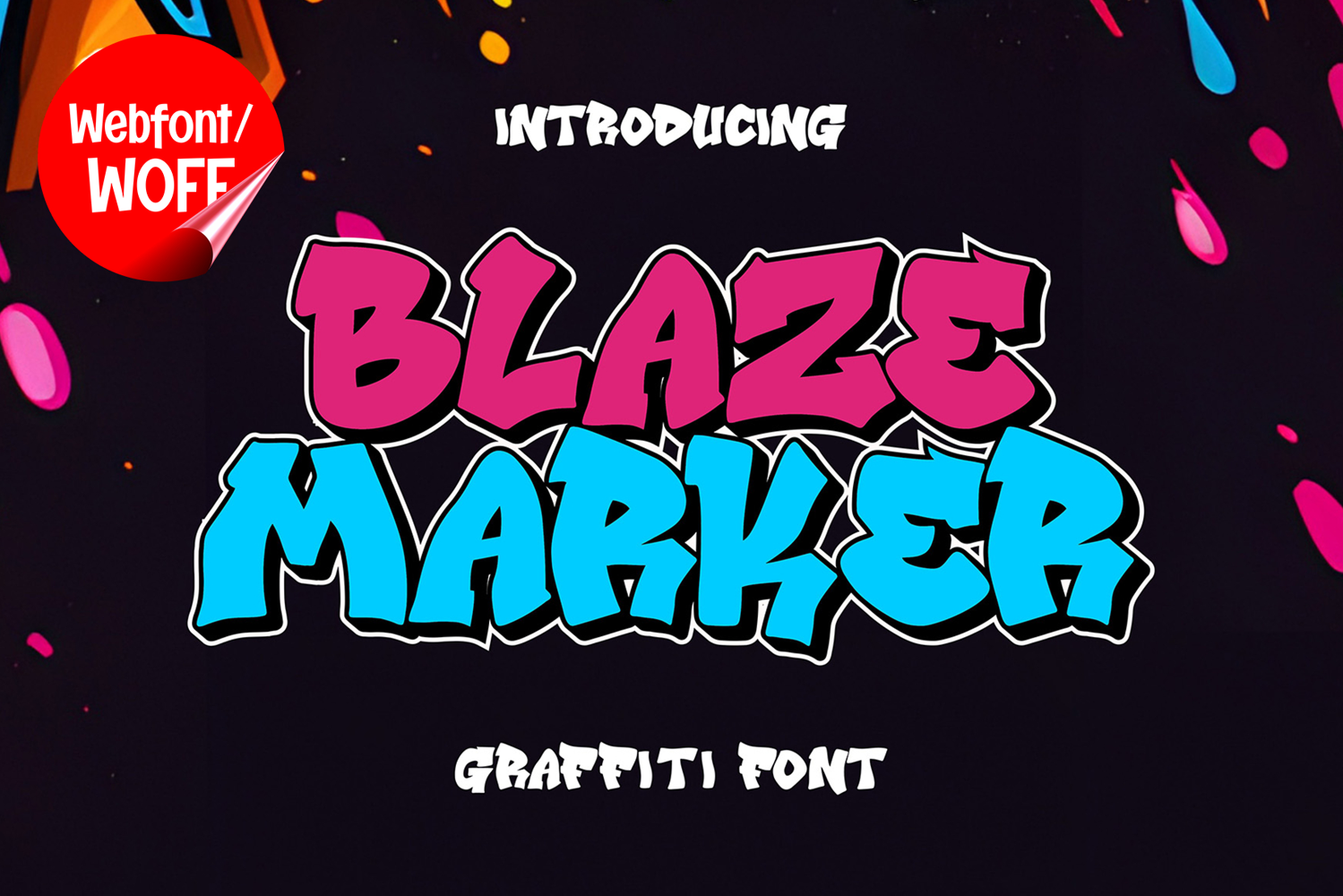
Blaze Marker | 3D Break Layered Graffiti Webfont for Urban
Blaze Marker is a 3D break layered graffiti webfont designed to bring explosive street-art energy and bold urban aesthetics into modern website design. Inspired by broken graffiti lettering, layered spray-paint murals, and underground wall art culture, this font features fragmented shapes and dimensional depth that create a powerful and rebellious visual identity. It is an excellent choice for projects that aim to deliver authentic graffiti visuals with strong creative impact and modern street-style character.
Blaze Marker includes a complete set of uppercase characters designed with break-style layered graffiti aesthetics. The letterforms feature aggressive cuts, dynamic curves, and dimensional layering that create an energetic and eye-catching street-art appearance. These characteristics make it ideal for headlines, banners, hero sections, promotional graphics, and featured content where strong urban visuals are needed.
In addition to letters, the font includes numbers and punctuation, allowing flexible usage across various parts of a website. It works well for streetwear branding, gaming websites, music platforms, hip hop projects, esports graphics, and creative portfolios. Each character maintains a consistent layered graffiti style, ensuring a cohesive and unified visual identity throughout the design.
With multilingual support, Blaze Marker includes a wide range of accented characters, making it suitable for international websites and global audiences. This ensures content remains clear and visually consistent across different languages while preserving the expressive and rebellious graffiti aesthetic.
The 3D break layered graffiti style of Blaze Marker makes it especially suitable for urban-themed websites, entertainment campaigns, youth-oriented branding, and creative digital projects. Its fragmented structure and layered depth create a powerful street-art atmosphere that helps websites stand out in visually competitive environments. The graffiti-inspired forms add movement, intensity, and authentic underground character while maintaining a modern display appearance.
Despite its decorative and highly expressive appearance, Blaze Marker is designed with readability in mind. The spacing and proportions are carefully balanced to ensure clarity, particularly in display sizes. This allows designers to use the font effectively for impactful headings and short content without sacrificing usability.
Blaze Marker is a webfont that combines break-style graffiti aesthetics with layered dimensional styling and modern digital performance. Its bold forms, expressive movement, and urban character create a distinctive typographic presence that enhances website design. For projects that require a strong, edgy, and visually engaging graffiti font, Blaze Marker offers a versatile and powerful solution.